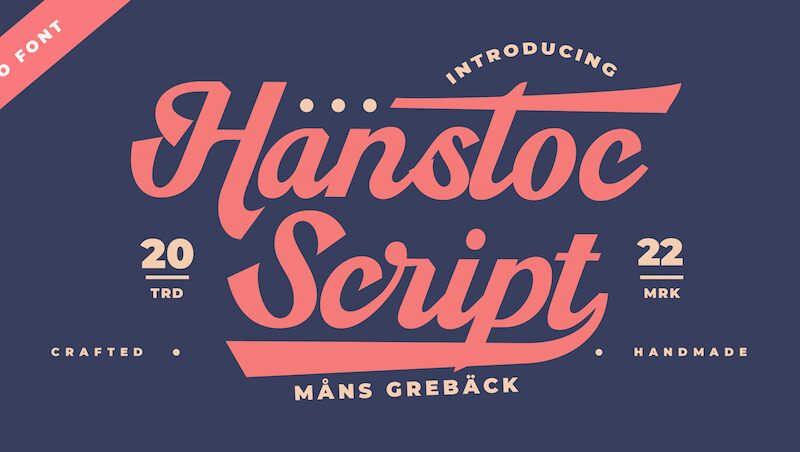
Hanstoc Script is a bold vintage script font created by Mans Greback. Its unique style is perfect for adding a touch of retro flair to any project, whether it be branding, packaging, or advertising. Hanstoc Script's bold weight makes it ideal for headlines and titles, drawing attention to important information while still maintaining its vintage charm. Use it for anything from whiskey labels to book covers to give your project that extra bit of character and sophistication. With Hanstoc Script, you'll never have to sacrifice style for readability.
Use underscore _ to make a swash.
Example: Baseball_
Use multiple underscores to make different lengths.
Example: Beauty____